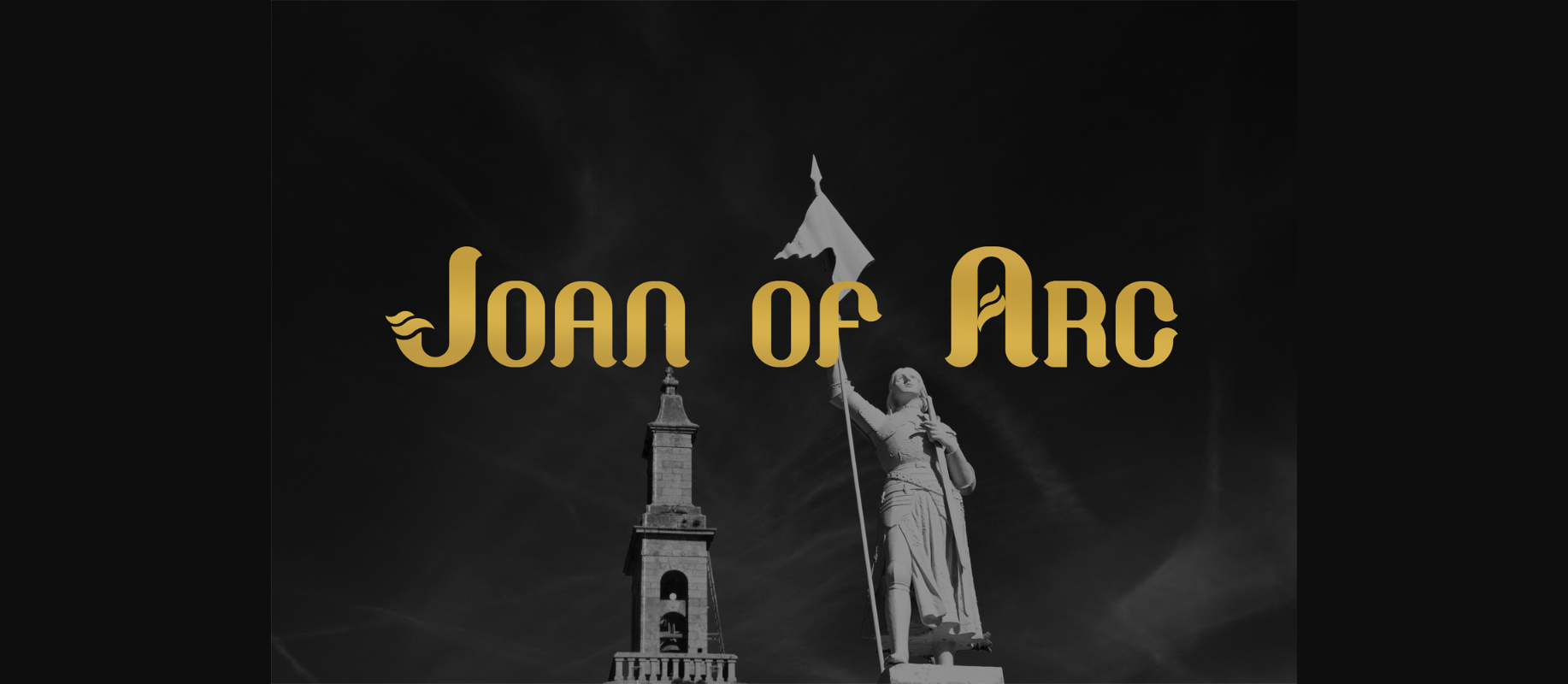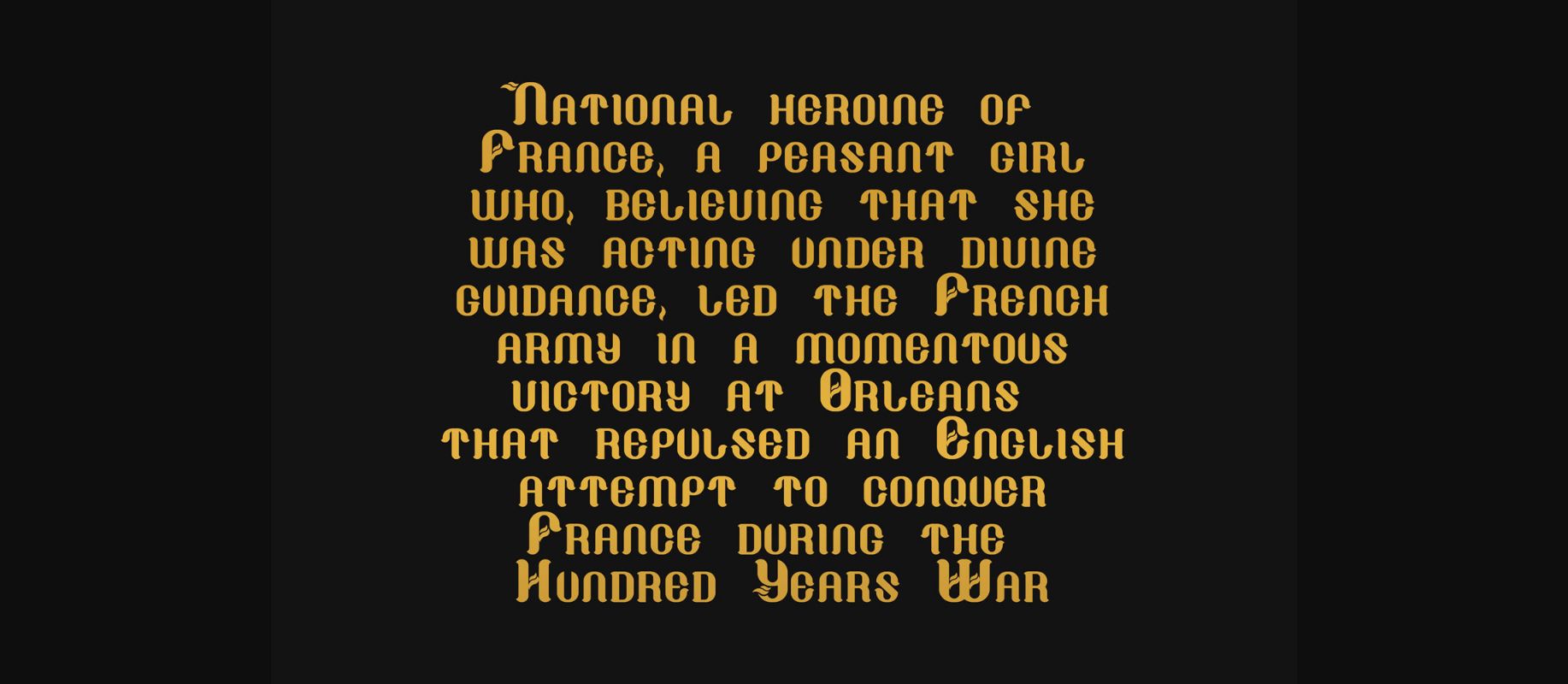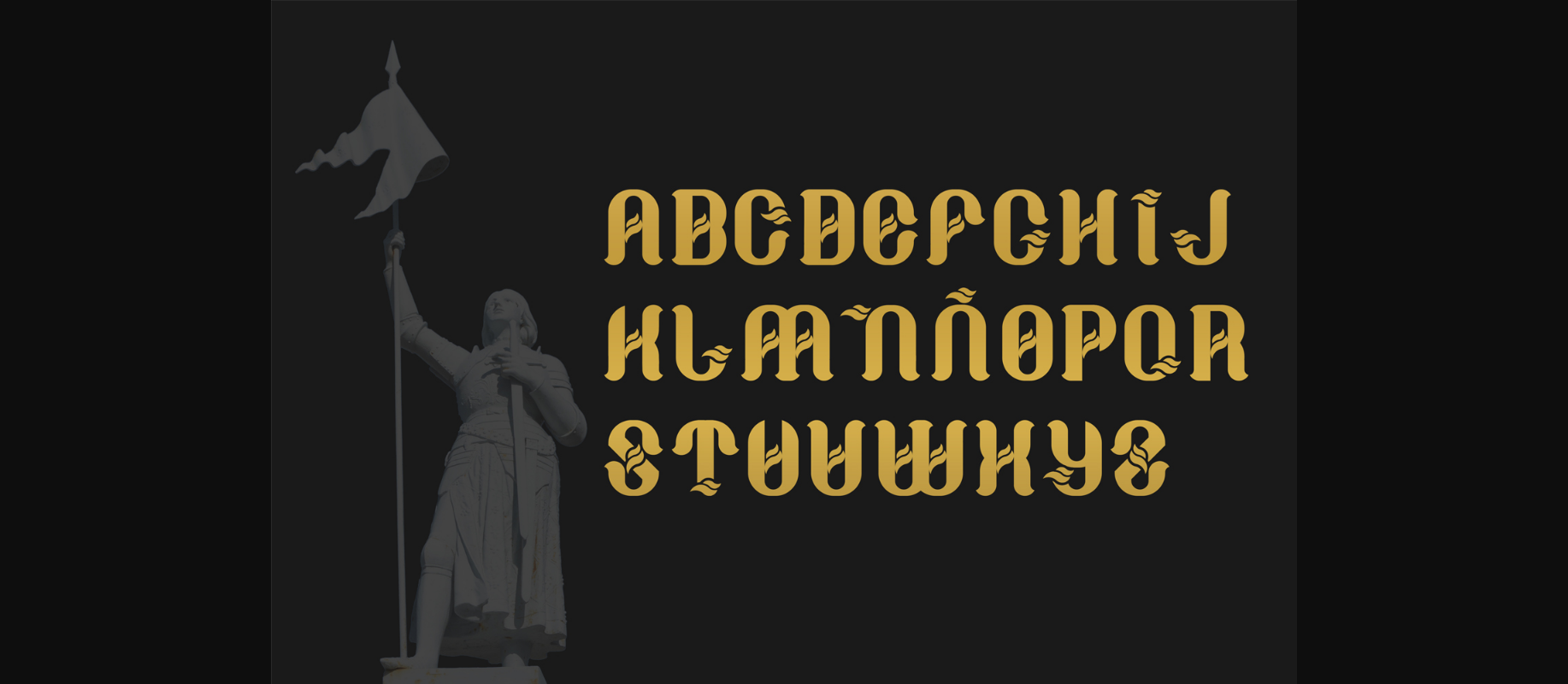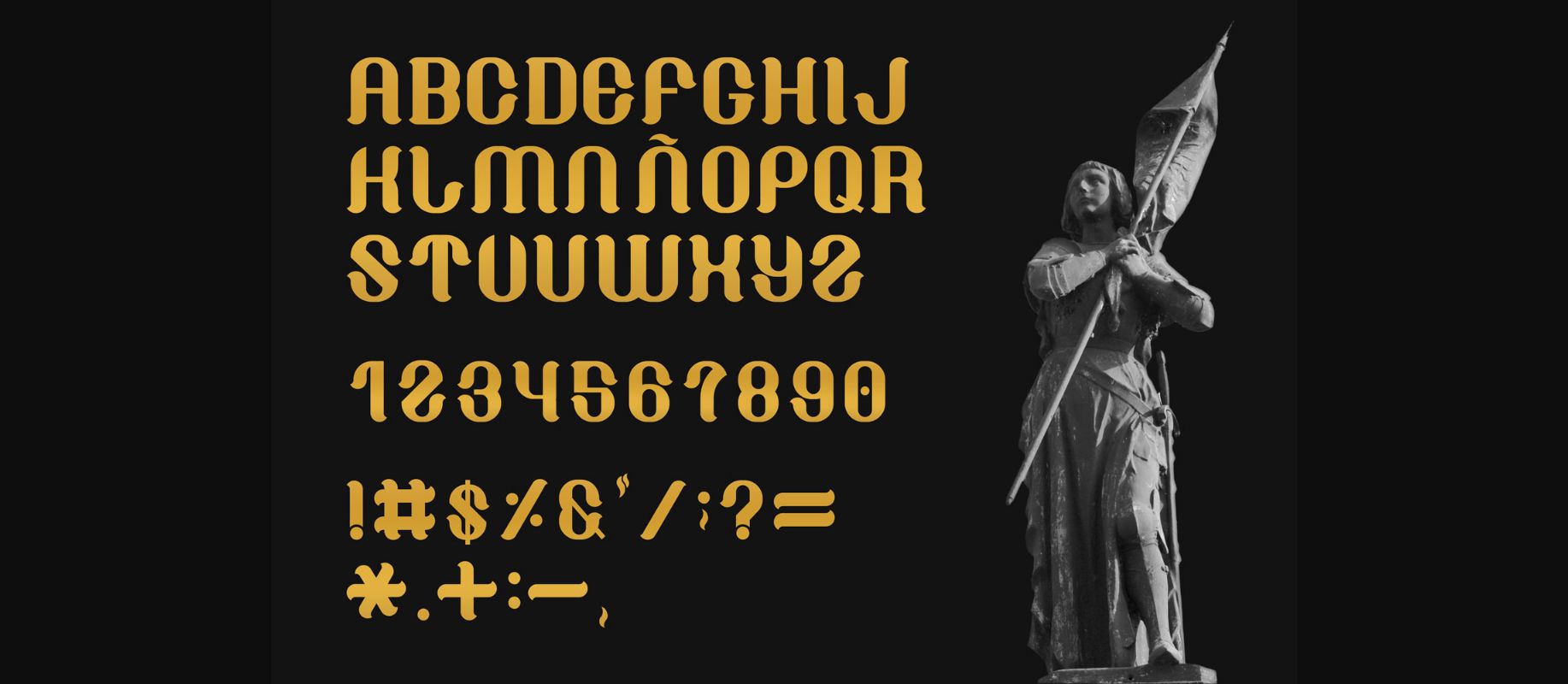
Joan of Arc Font
About Joan of Arc Font
Fountain with medieval style, this font was created with beautiful and elegant lines. Joan Of Arc is traditionalism at its finest, with boldness and unparalleled attention to detail.